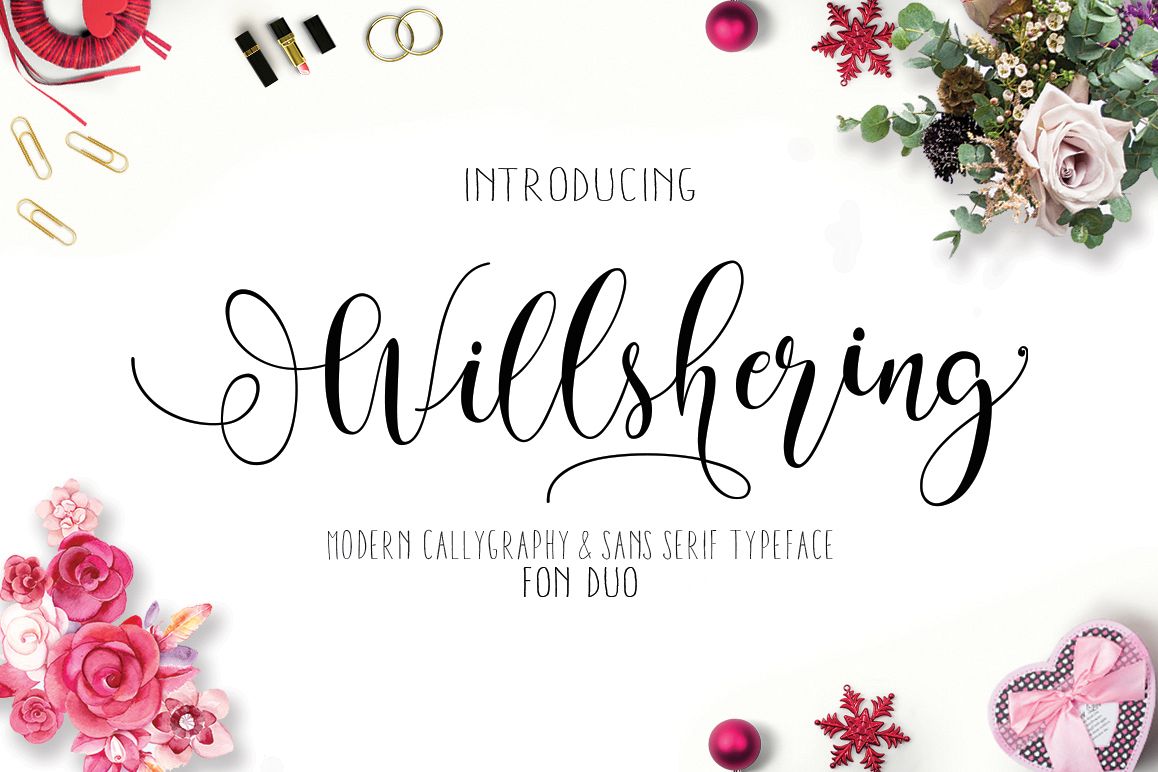
Willshering script
Willshering sans.
Willshering.
Introducing the newest else is so beautiful and comes with two very elegant fonts that are designed to compliment each other perfectly.
Willshering script are a hand calligraphy, smooth, modern and clasik, calligraphy wavy, which was created to meet the needs of your next design project.
Willharing script : A script that is so beautiful with gorgeous grounds, and furnished with fine lines are perfect for use ntuk many purposes. such as title, signature, logo, correspondence, wedding invitations, letterhead, signage, labels, newsletters, posters, badges, Branding, Greeting Cards, etc. It comes with a handy set of OpenType Contextual Alternates, Stylistic Alternates, stylistic sets, ligatures and swashes and all to add an authentic touch to your design. Willshering features 558 glyphs and This is all the code with Unicode PUA - allows people who do not have the software to access specific glyph alternately too :) - Mac users can use Font Book, and Windows users can use the Character Map to view and copy one additional character to paste into your a text editor / favorite applications.
Willshering sans : A neat little set of uppercase letters and numbers stood upright and sturdy, sans serif characters are perfect for large prints and fine.
The Features of this fonts is: Contextual Alternates, Standart ligatures, Stylistic Alternates, Stylistic Sets, end swashes.